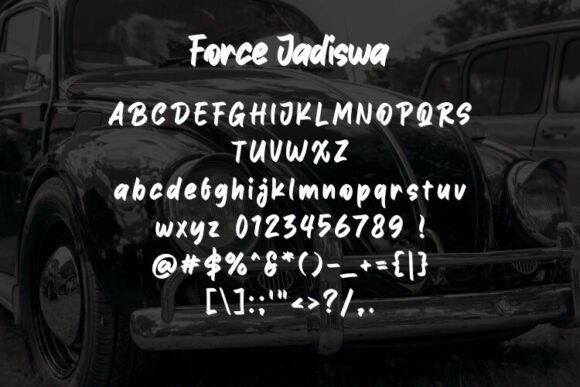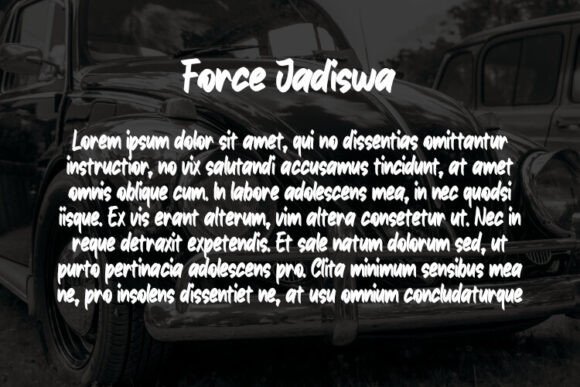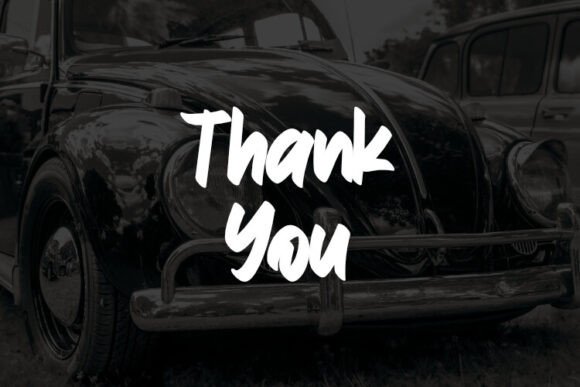
Unlock the Power of Force Jadiswa Font: Elevate Your Designs to Extraordinary
Are you a designer, crafter, or DIY enthusiast looking for a font that can transform your creations from ordinary to extraordinary? Look no further than Force Jadiswa, a versatile and adaptable font that’s taking the design world by storm. In this article, we’ll explore the features, benefits, and uses of Force Jadiswa, and discover how it can become your secret weapon in the world of designing products.
What is Force Jadiswa Font?
Force Jadiswa is a unique and stylish font that’s specifically designed to add a touch of personality to your designs. With its .otf file format, this font seamlessly integrates with any software, making it easy to use and compatible with a wide range of design tools. Whether you’re creating custom apparel, accessories, or home decor items, Force Jadiswa is the perfect choice for adding a subtle yet distinctive character to your creations.
Key Features of Force Jadiswa Font
- Versatility: Force Jadiswa is a highly versatile font that can be used for a wide range of design projects, from shirts and apparel to accessories and home decor items.
- Adaptability: This font adapts effortlessly to any design style, ensuring that your creations look cohesive and visually appealing.
- Subtle Character: Force Jadiswa adds a subtle yet distinctive character to your designs, setting them apart from the ordinary and making them truly extraordinary.
Benefits of Using Force Jadiswa Font
So, why choose Force Jadiswa for your design projects? Here are just a few benefits of using this amazing font:
- Consistency: This font ensures consistency across all your designs, creating a cohesive brand identity that’s essential for building a strong visual presence.
- Creativity: Force Jadiswa inspires creativity and imagination, allowing you to experiment with different design styles and ideas.
Exploring the Wardrobe of Alphabets with Force Jadiswa
With Force Jadiswa, you have access to a vast wardrobe of alphabets at your fingertips. This font offers a wide range of characters, symbols, and glyphs that can be used to create unique and eye-catching designs. Whether you’re designing custom apparel, accessories, or home decor items, Force Jadiswa provides the perfect combination of style, versatility, and adaptability.
Unleashing the Potential of Force Jadiswa
So, how can you unleash the potential of Force Jadiswa in your design projects? Here are a few ideas to get you started:
- Custom Apparel: Use Force Jadiswa to create custom t-shirts, hoodies, and other apparel items that showcase your brand’s personality and style.
- Accessories: Add a touch of personality to your accessories, such as hats, bags, and phone cases, with Force Jadiswa.
- Home Decor: Use Force Jadiswa to create unique and eye-catching home decor items, such as wall art, canvas prints, and customized furniture.
Force Jadiswa is a game-changing font that’s designed to elevate your designs to extraordinary. With its versatility, adaptability, and seamless compatibility with any software, this font offers a world of creative possibilities. Whether you’re a designer, crafter, or DIY enthusiast, Force Jadiswa is the perfect choice for adding a subtle yet distinctive character to your creations. So why wait? Unlock the power of Force Jadiswa today and discover a world of limitless design possibilities!